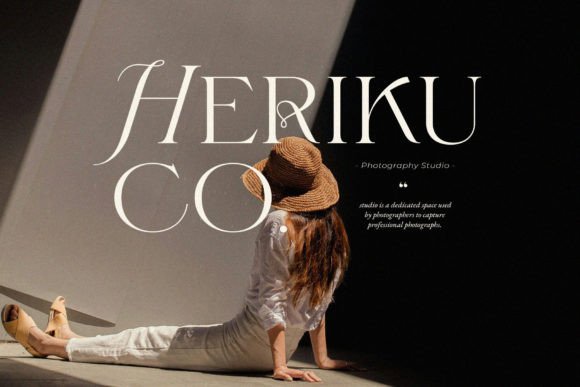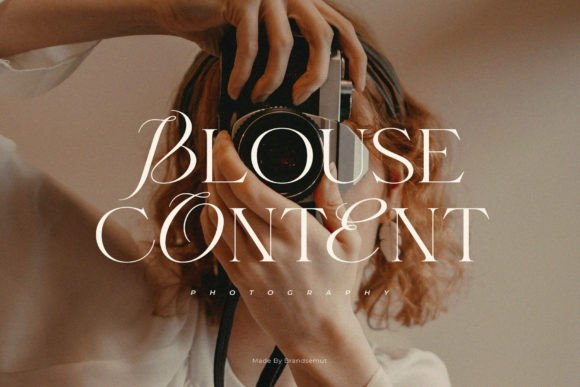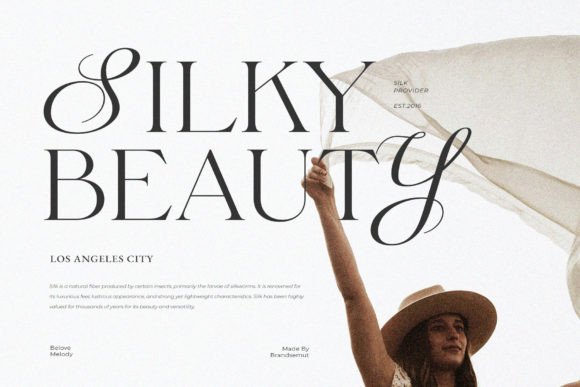
Belove Melody Font
Belove Melody is a refined and sophisticated serif font exuding timeless elegance. Its graceful curves and sharp serifs evoke a sense of classical beauty, making it perfect for elegant branding, editorial design, and luxury packaging. With its versatility and charm, Belove Melody adds a touch of sophistication to any project.